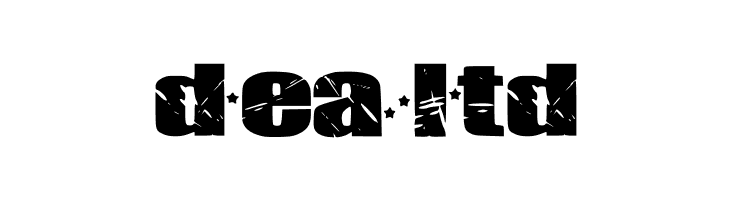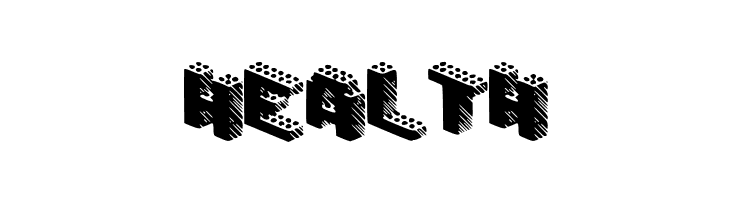
A bold, geometric font with a strong, uniform appearance.
Playful, rounded handwritten font.
A bold, dynamic font with playful curves and a modern-retro flair.
Eclectic hand-drawn dingbat font with playful icons and symbols.
A playful, dotted font with characters formed from small circles.
A playful, handwritten font with a quirky and informal style.
Eclectic hand-drawn dingbat icon set with playful motifs.
A playful, dynamic script font with fluid, cursive letterforms.
A modern, decorative font with artistic curves and bold strokes.
A playful, monospaced font with a handwritten feel and consistent spacing.
A bold, handwritten-style font with a playful and dynamic appearance.
An artistic font with bold, sweeping strokes and dynamic movement.
A bold, expressive font with sweeping, calligraphic strokes.
An abstract, fragmented font with bold, irregular shapes.
A bold, playful font with jagged, geometric shapes.
A playful, handwritten font with rounded edges and a casual style.
A bold, distressed font with a rugged, grunge-like appearance.
A whimsical, cartoon-like font with playful characters instead of letters.
A bold, playful font with thick strokes and a slightly condensed style.